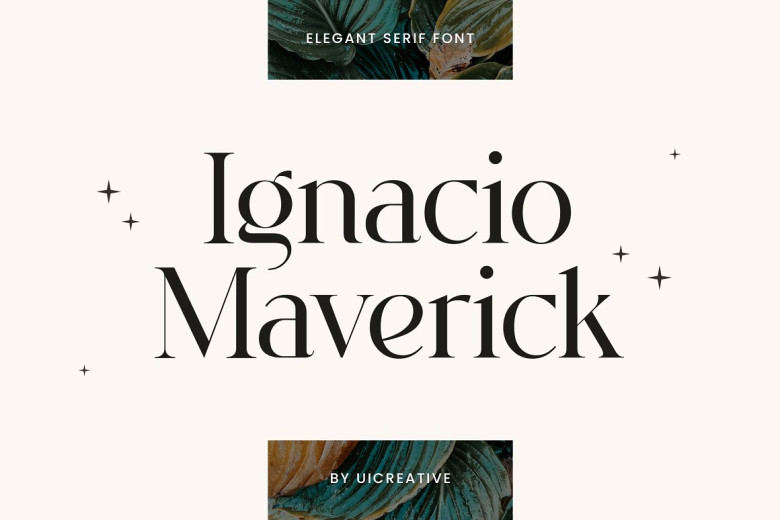
Ignacio Maverick Font
Ignacio Maverick, an elegant serif font that has class, style and edge–is ideally suitable to a wide variety of projects and tasks such as signature, stationery, logo, wedding, typography quotes, magazine or book covers, website headers, clothing, branding and product packaging.
Ignacio Maverick Serif Font